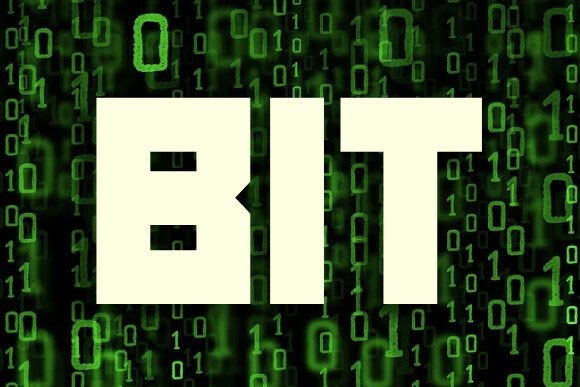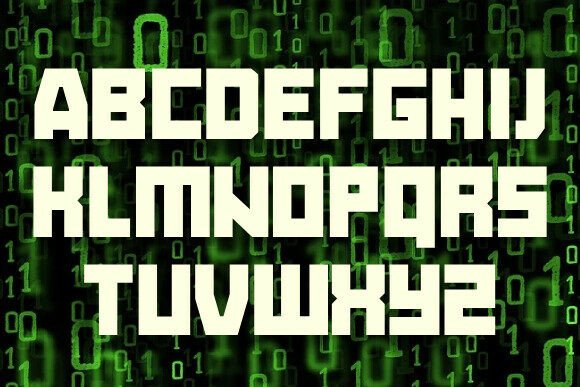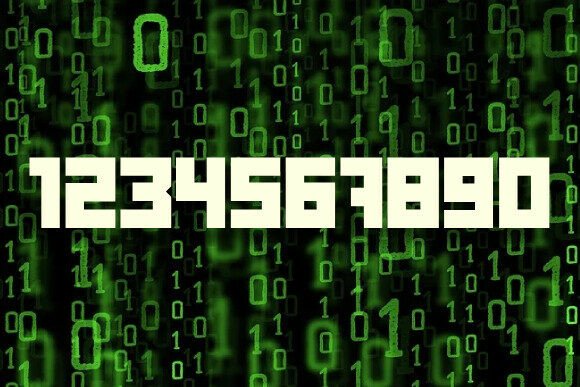
Introduction to Frohburg Font
Frohburg is a bold techno font with a sharp, angular structure that reflects digital and futuristic themes.
Its geometric forms and condensed spacing evoke the aesthetics of cyber systems, glitch effects, and high-tech interfaces Ideal for use in digital posters, game titles, sci-fi branding, and tech-forward visuals, Frohburg brings a striking, high-impact look suitable for designs that demand a bold and modern edge.
Key Features of Frohburg Font
Why Choose Frohburg Font?